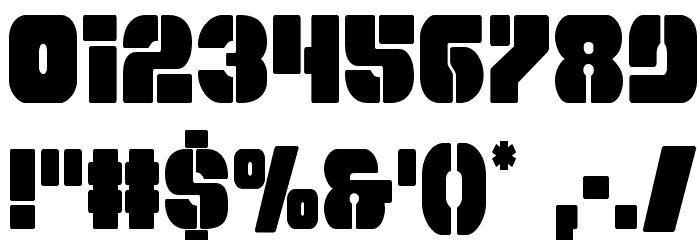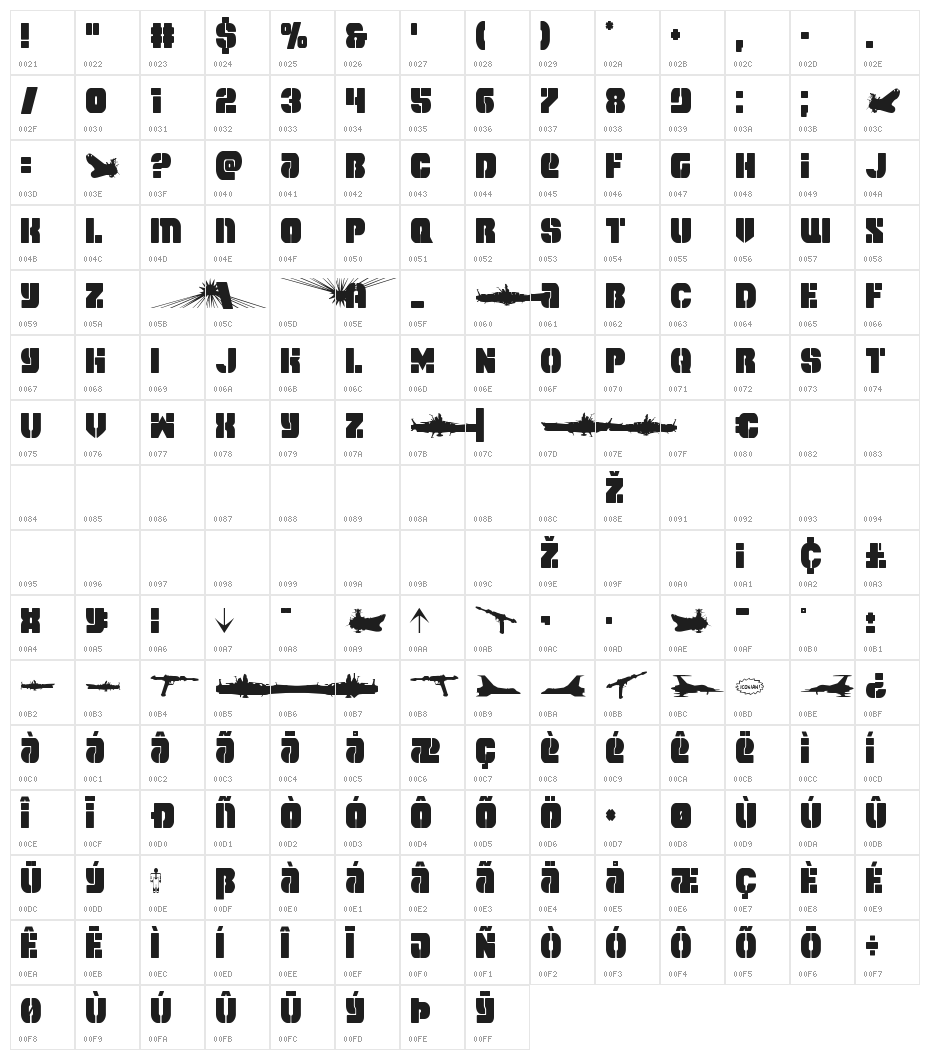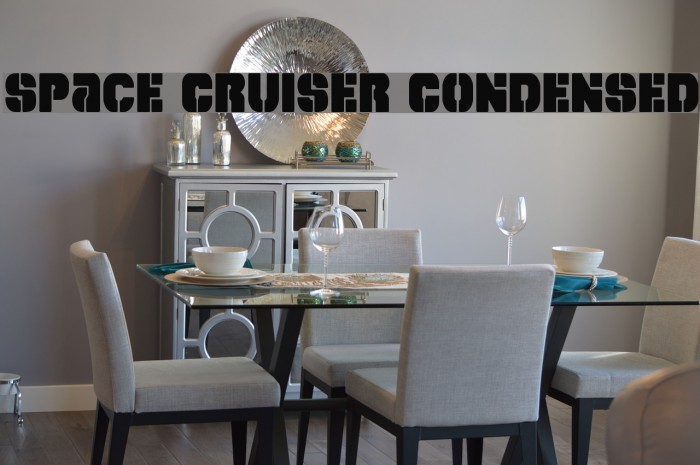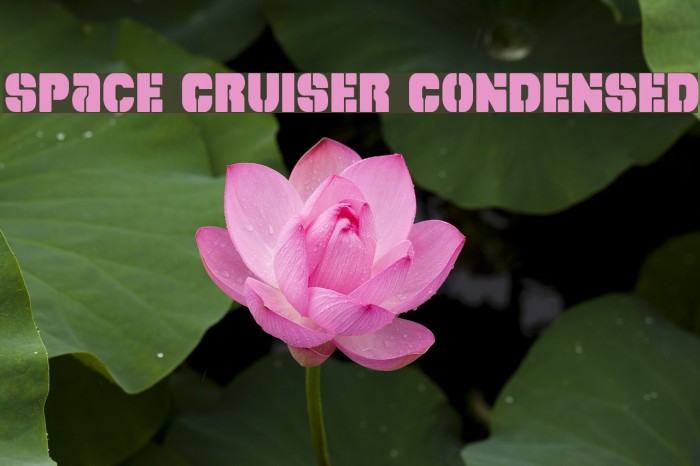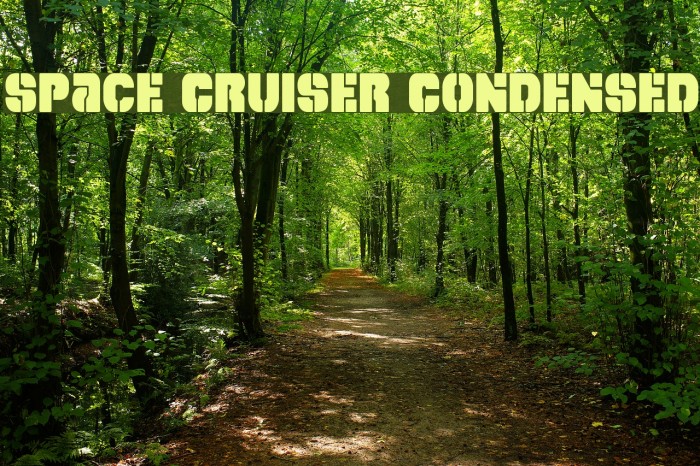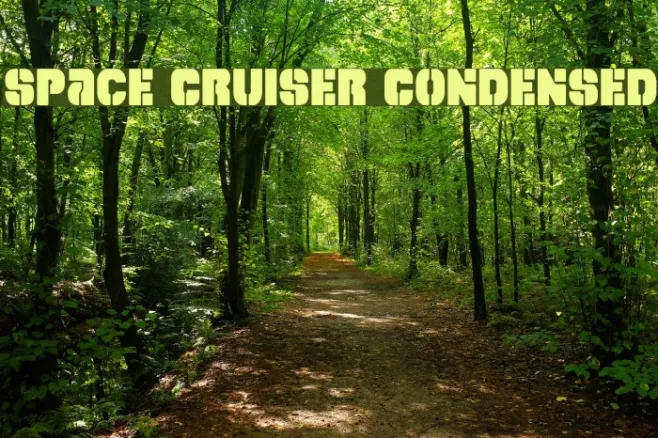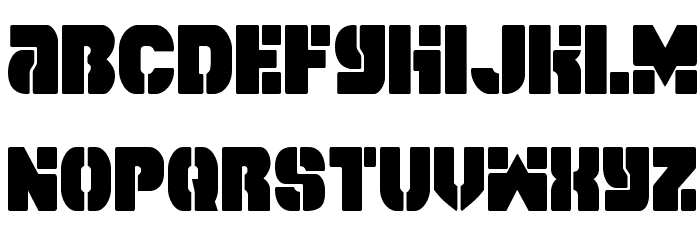
Space Cruiser Condensed Font
Space Cruiser Condensed Description
This font features a bold, futuristic design with a condensed structure, characterized by its thick, blocky letters and geometric shapes. The uppercase and lowercase letters maintain a consistent height, contributing to its uniform appearance. The numbers and special characters follow the same bold style, making them stand out prominently. The font's design is reminiscent of sci-fi and space-themed aesthetics, with a modern twist that makes it suitable for attention-grabbing headlines and titles. Its unique style is both eye-catching and functional, offering a strong visual impact.
| Proposed Projects | Ideal for sci-fi movie posters, video game titles, futuristic branding, and technology-related advertisements. |